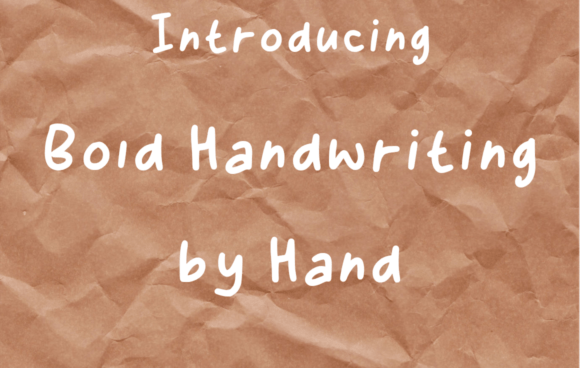
Bring a Touch of Personality to Your Designs
Have you ever sat down with a cup of coffee, a notebook, and a pen, waiting for inspiration to strike? The gentle scratch of the pen on paper, the flow of ideas as they pour onto the page – it’s a moment of pure creativity. And when you need to capture that same essence in your designs, that’s where the Bold Handwriting by Hand Font comes in.
This authentic, bold, and hand-drawn decorative font is more than just a typeface – it’s a way to add a warm, personal touch to your projects. Whether you’re crafting heartfelt greeting cards or modern branding materials, the Bold Handwriting by Hand Font is the perfect companion. Its smooth, rounded edges and consistent bold weight make it incredibly versatile, ensuring high legibility and a “handmade” feel that stands out beautifully against any background.
Key Features of Bold Handwriting by Hand Font
- Font Style: Bold, Handwritten Font with a unique, cursive feel
- Unique Characteristics: Distinctive, bold lines and rounded edges give the font a dynamic, expressive feel
Designer Review: Bold Handwriting by Hand Font
I recently had the chance to work with the Bold Handwriting by Hand font, and I must say it’s a unique addition to any design project. ✨ One of the things that stands out is its ability to add a touch of personality to text-based elements. The font’s bold, handwritten feel can elevate a simple headline or title to make it stand out on a page.
Some of the other features that I appreciate about this font include:
- Wide range of character sets, including punctuation and numbers, to ensure seamless integration into your design.
- Support for various languages, making it a great option for international projects.
However, I do have a few concerns about this font. ⚠️ The bold weight can sometimes feel a bit too aggressive, overpowering the rest of the design. Additionally, the font’s variability in letter spacing and stroke width can make it challenging to maintain a consistent look across different elements.
Overall, I would say that Bold Handwriting by Hand font is a solid choice for designers looking to add some flair to their text-based elements. While it may not be perfect, its unique personality and range of features make it a valuable addition to any design toolbox.
Use Bold Handwriting by Hand Font to add a personal touch to your designs, such as:
- Titles and headings
- Quotes and captions
- Handwritten-style notes and annotations
Bold Handwriting by Hand Font is perfect for:
Alternatives to Bold Handwriting by Hand Font
Great Vibes is a beautiful, elegant script font that conveys a sense of sophistication and refinement. It is ideal for use in high-end branding, luxury packaging, and other applications where a premium feel is desired.
Compared to Bold Handwriting by Hand Font, Great Vibes has a more refined and polished look, making it suitable for a wider range of applications.
Carolyna Pro is a modern script font that combines the elegance of a traditional script with the versatility of a modern font. It is perfect for use in branding, advertising, and editorial design.
Carolyna Pro has a more modern and edgy feel compared to Bold Handwriting by Hand Font, making it ideal for designers who want to add a touch of contemporary style to their work.
Curry Script
Curry Script is a stylish and elegant script font that is reminiscent of traditional calligraphy. It is ideal for use in branding, packaging, and other applications where a touch of sophistication is desired.
Q: Is Bold Handwriting by Hand Font compatible with right-to-left languages?
Yes, the Bold Handwriting by Hand Font is designed to be compatible with right-to-left languages, including Arabic, Hebrew, and others. However, please note that some features may not work as expected in these languages, and you may need to adjust font settings or use additional software to achieve optimal results.